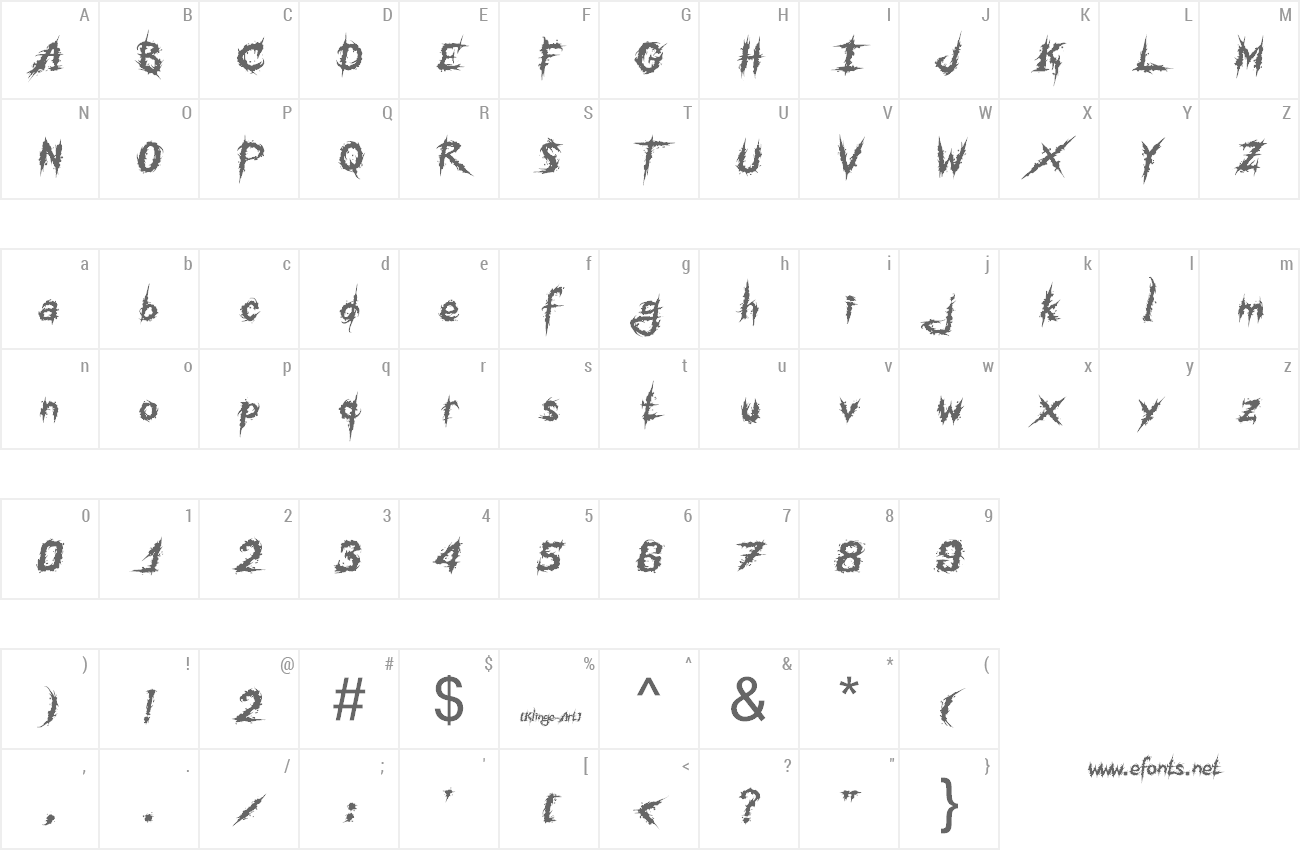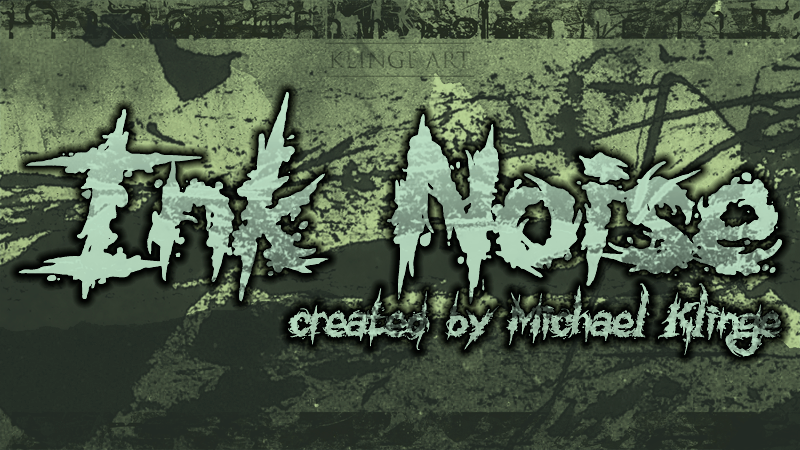
It's been about 4 years since I uploaded my first font... Thanks to everyone who found that useful and supported me! This time I created a clearer and more brutal font, plus a few "additional" letters, so I'm sure you're gonna like it more than the other ones. You may check out my other works here: https://www.facebook.com/KlingeArt For an original logo in extreme metal style, send a message to my design page on fb or to my email mixkhatar13@gmail.com Also, if you'd like to hear my music: https://www.facebook.com/ThroneOvExtraterrestrialsOFFICIAL |